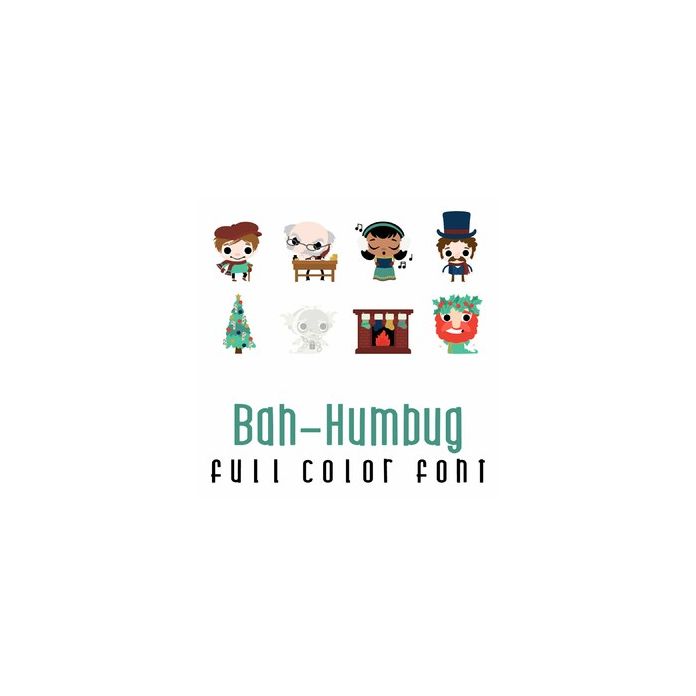
This adorable full-color doodlebat font features 26 images from Christmas holiday favorite. Perfect for cards, crafts, gifts, decor, scrapbook pages, planner stickers, and more!